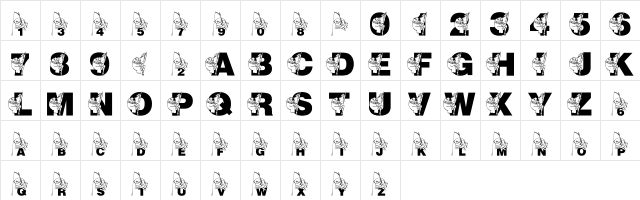
Complete LMS Mr Jeremy Fisher Regular glyph index. Displaying only characters natively supported by LMS Mr Jeremy Fisher Regular font.
LMS Mr Jeremy Fisher is a composed and adaptable typeface that performs quietly and consistently across a wide range of design contexts.